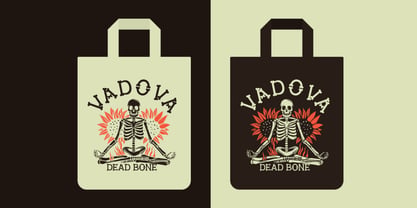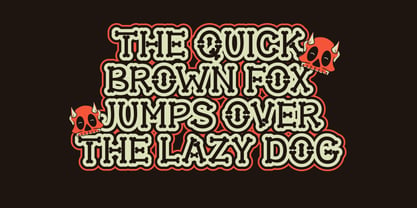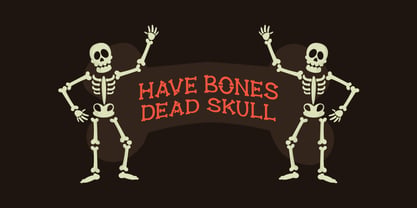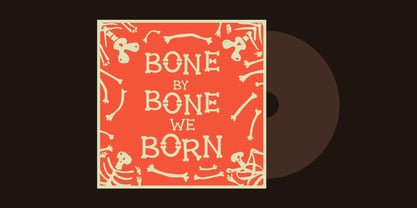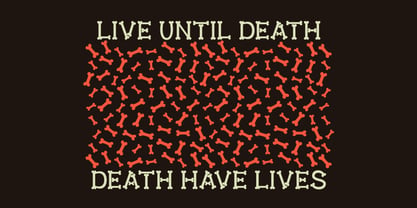
Deadbone
Elevate your designs with Deadbone Creative Font, a quirky bone-shaped display typeface that brings a spooky and playful twist to your designs. Inspired by gothic themes, Halloween aesthetics, and cartoon horror vibes, its bold, bony letterforms make it ideal for posters, horror-themed branding, party invites, and merchandise design. Each character mimics the structure of real bones, giving the font a skeletal charm that’s both eerie and fun. With its high-impact visuals and unique personality, Deadbone is perfect for projects that aim to be creepy, creative, and unforgettable.
Deadbone